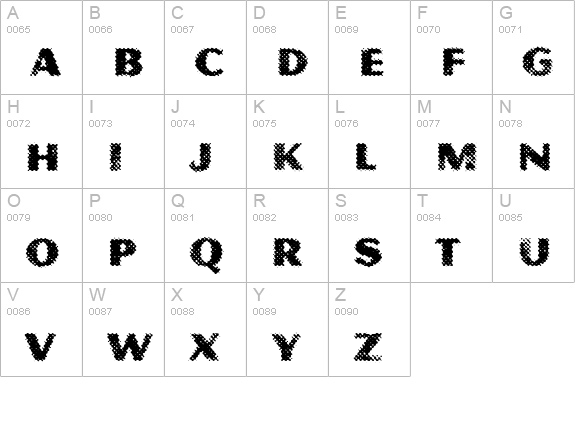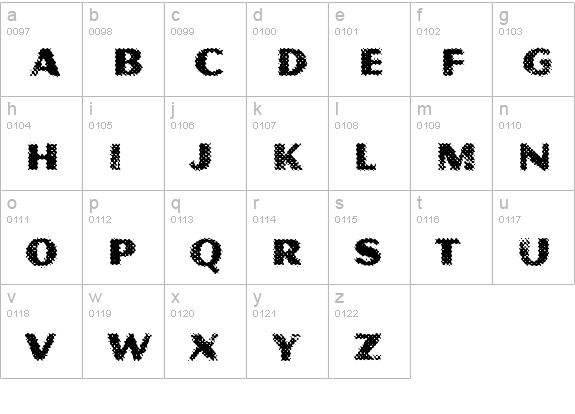
Magnesium MVB Std Grime Font Details
Introducing Magnesium MVB Std Grime font - a captivating and versatile typeface that exudes a raw and edgy aesthetic. This font is perfect for adding a touch of urban sophistication to your designs, whether it be for posters, album covers, or branding projects. Magnesium MVB Std Grime font features a unique combination of bold, distressed letterforms and intricate detailing, creating a captivating visual presence that demands attention. Its gritty and weathered appearance adds a sense of authenticity and depth to your designs, making it ideal for projects that require a touch of urban flair. One of the best features of Magnesium MVB Std Grime font is that it is freely available to download at FontsMarket.com. This means that you can easily access and utilize this remarkable typeface without any limitations or restrictions. Whether you're a professional designer or simply a creative enthusiast, this font is a valuable addition to your typographic arsenal. With its wide range of characters and extensive language support, Magnesium MVB Std Grime font offers endless possibilities for creative expression. Its versatility allows it to effortlessly adapt to various design styles, from modern and contemporary to vintage and retro. The attention to detail in each letterform ensures legibility while maintaining its distinctive and eye-catching appeal. Embrace the bold and captivating nature of Magnesium MVB Std Grime font and elevate your designs to new heights. Whether you're aiming to make a statement or evoke a certain mood, this font is sure to leave a lasting impression. Download it for free at FontsMarket.com and unlock the full potential of this remarkable typeface.